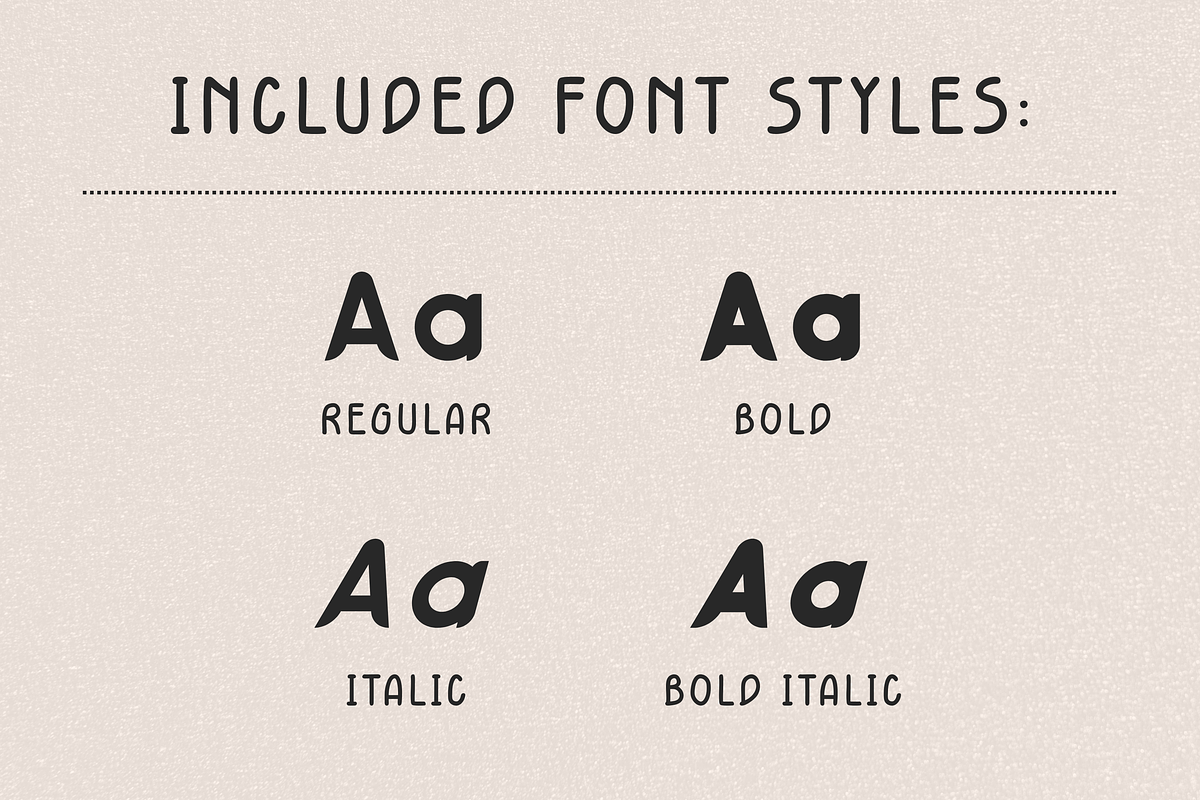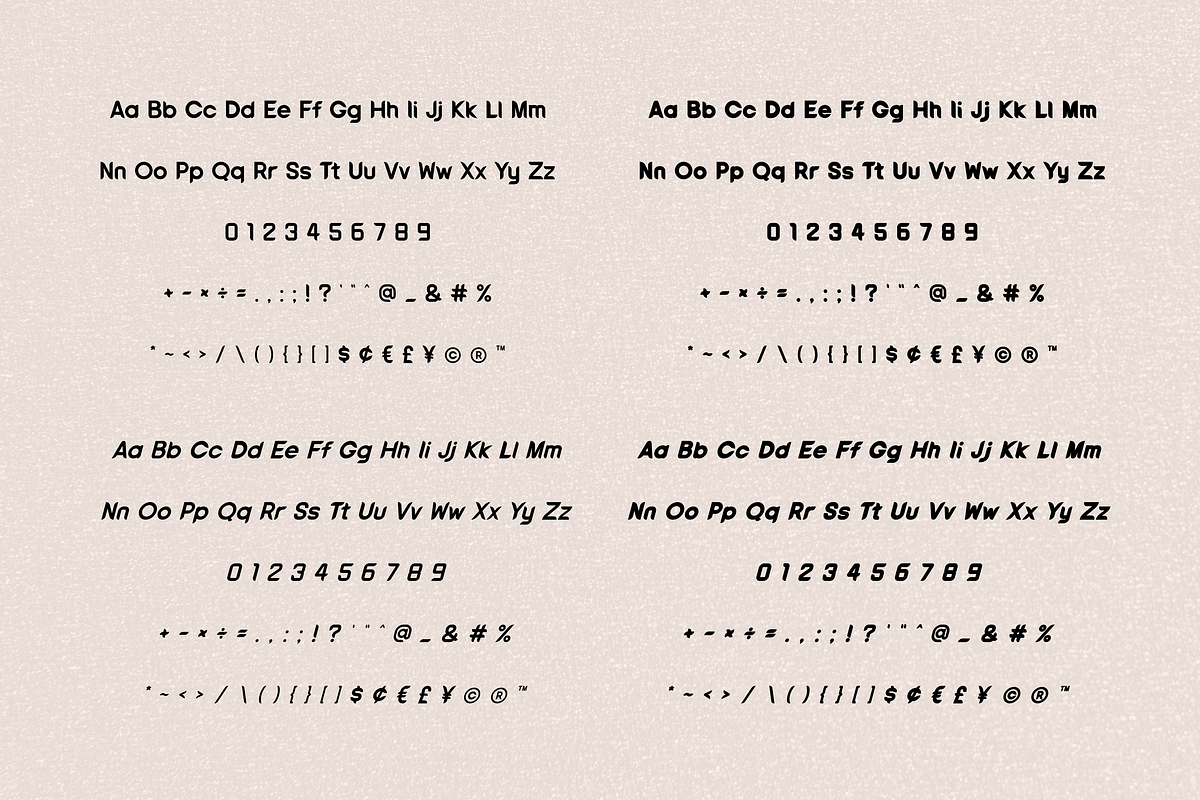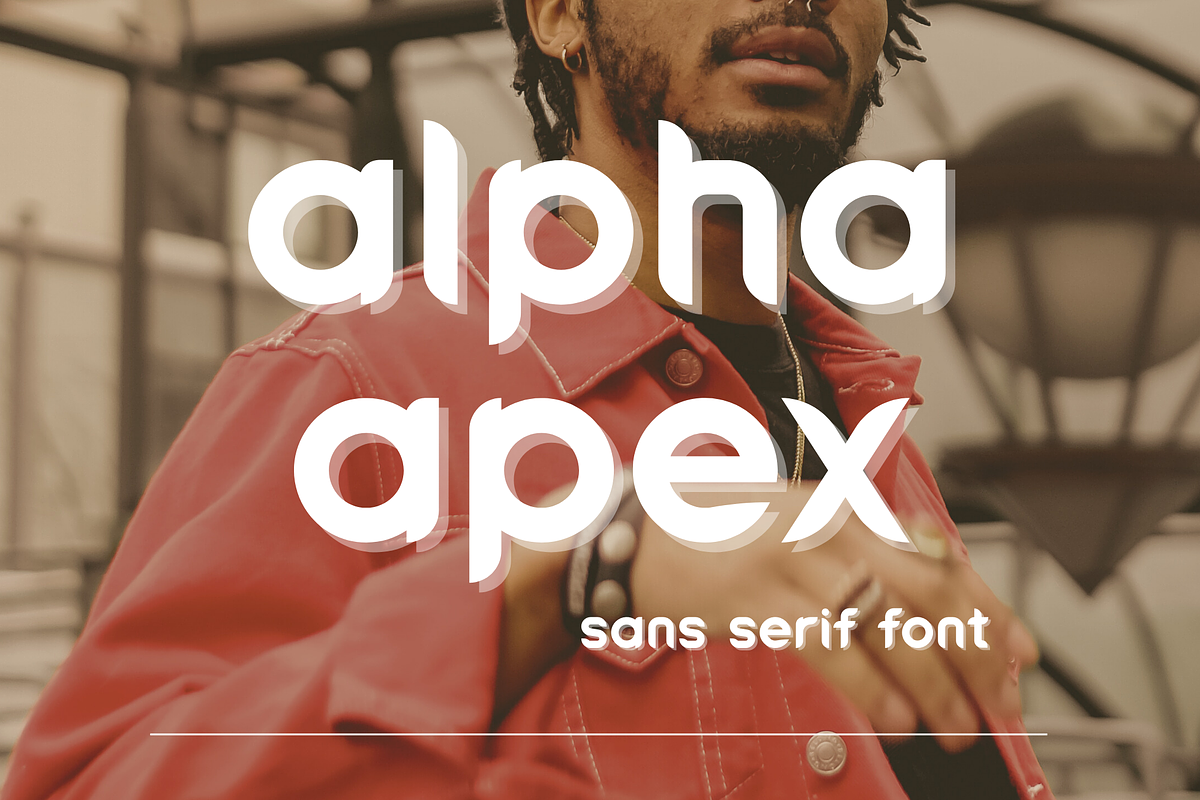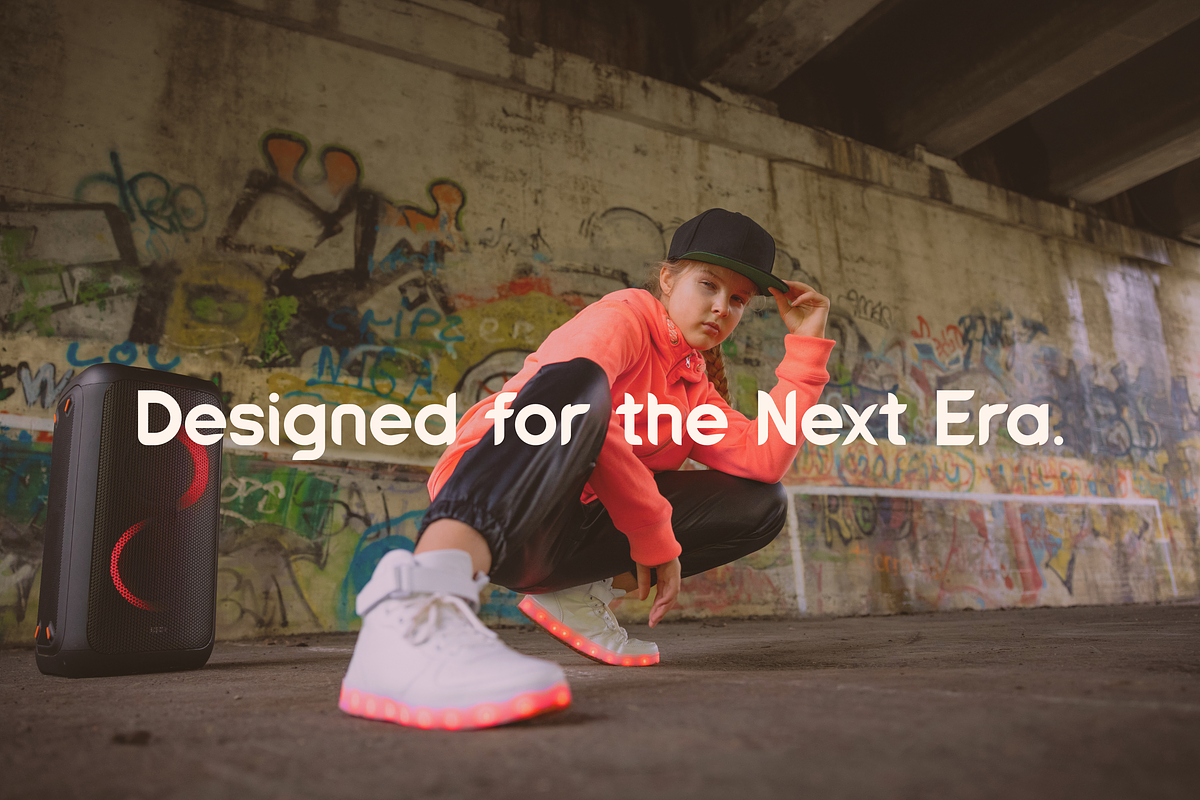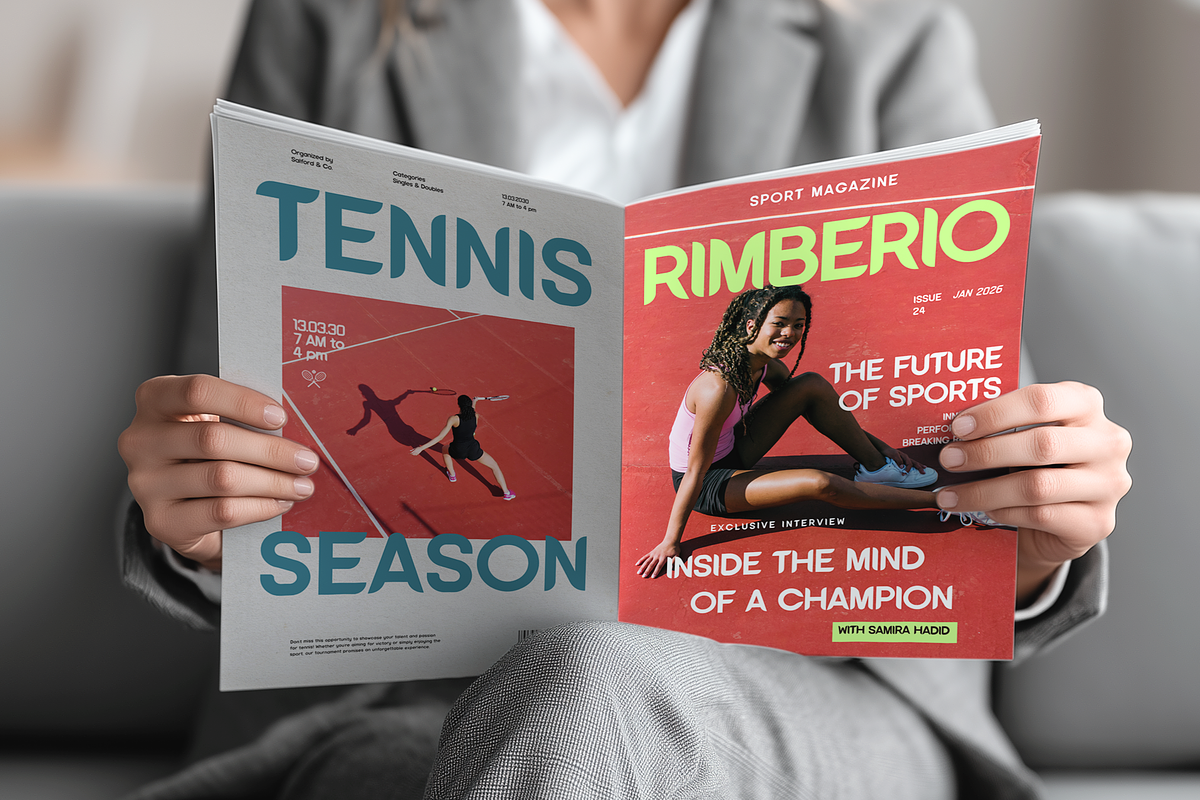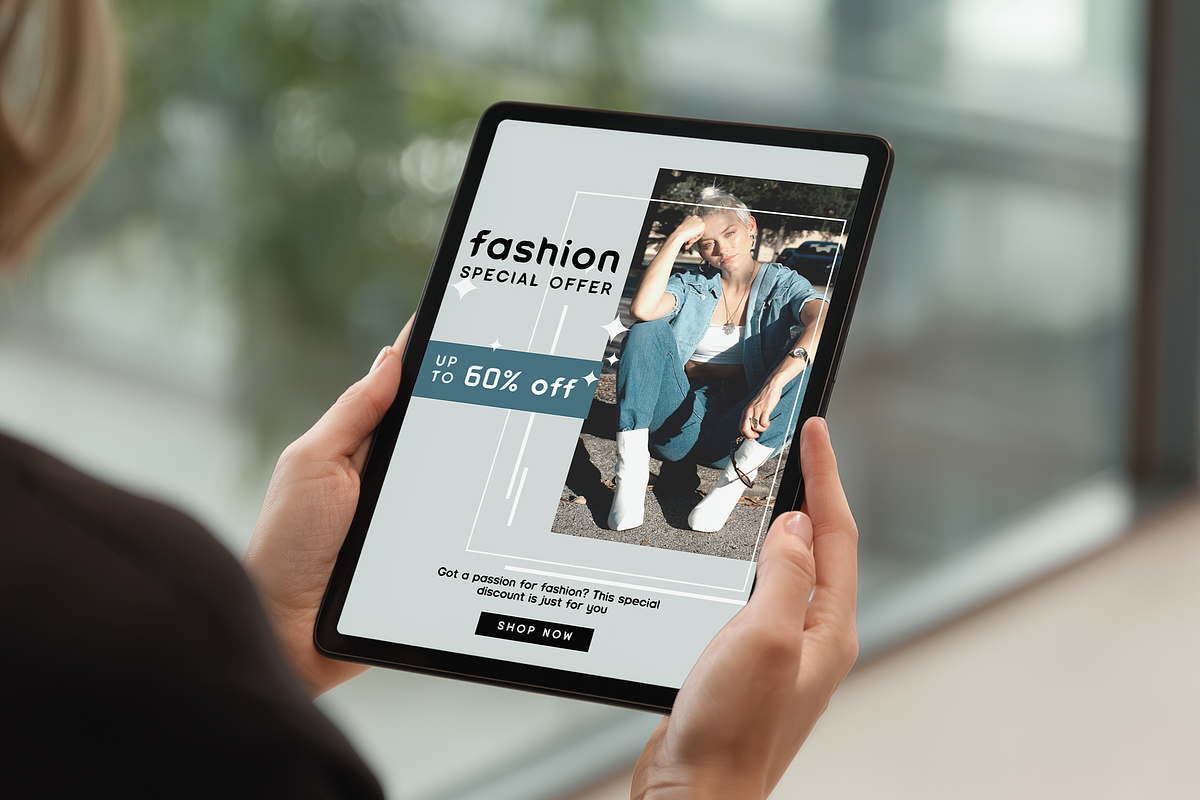
Modern Sans Serif font - Alpha Apex
Alpha Apex – Modern Rounded Sans Serif Font
Alpha Apex is a bold and modern sans serif font designed for clean branding, logo design, web typography, and creative projects. Its rounded edges and contemporary structure make it perfect for designers who want a strong yet friendly visual identity. Whether you're creating logos, posters, packaging, social media graphics, or website headers, Alpha Apex delivers a sleek and professional look.